Vintage Font Bundle That’ll Make You Travel Back In Time
Looking for glamor and luxury in your designs?
Take a spin at modern art style with the Vintage Fonts Bundle , featuring 88 Unique Fonts Bundle With Over 100 Graphic Elements!
Whether you are a graphic designer, digital creator, or a typography enthusiast, these fonts can elevate your creations!
You can use these fonts to evoke the elegance of a bygone, vintage era. They will help infuse a touch of nostalgia into any contemporary designs.
They may be inspired by vintage elements but some things just never go out of style.
The vintage font bundle can captivate and woo an audience, making your designs standout.
Vintage Fonts
Before we get into the details of the bundle, let’s talk about vintage fonts in design.
Vintage fonts can make you step back in time. They can create an authentic and nostalgic aesthetic in your artwork.
The versatility and timeless appeal of such fonts make them suitable for a wide array of design applications. They enable designers to infuse a sense of history and character into their work.
Such vintage fonts can be used to create logos, packaging, wedding invitations, book covers and so much more.
Whether you’re a seasoned art enthusiast or a curious newcomer, prepare to be captivated by the charm and timelessness of these fonts.
The Vintage Font Bundle
Retro fonts are taking a new avatar and have become the latest trend in the design world.
Be it social media, advertisement, branding, printing or website designing, vintage style is surely in vogue!
With the effort of top designers, introducing The Vintage Fonts Bundle to bring out the most authentic retro-style designs.
The bundle consists of 16 font families in 88 different font files and more than 100 vector graphic elements.
These fonts are perfect for a variety of online and print projects including T-shirts, wedding invitations, logos, quotes, signs, posters and many more.
These vintage fonts will add age, texture, and depth to your designs.
You can easily add your own spin with these fonts by adding your own modern edge to them.
They hold a cultural and aesthetic aspect that can evoke nostalgia conveying a certain historical charm.
Bridge the gap between past and present and add character and timelessness to your designs.
The elegant fonts in this bundle have been carefully created with sophisticated lines, proportions, and curves, ensuring they exude a luxurious feel.
Don’t hold back and express your inner artistic self with this vintage font bundle.
The 16 Font Families Included In This Vintage Font Bundle:
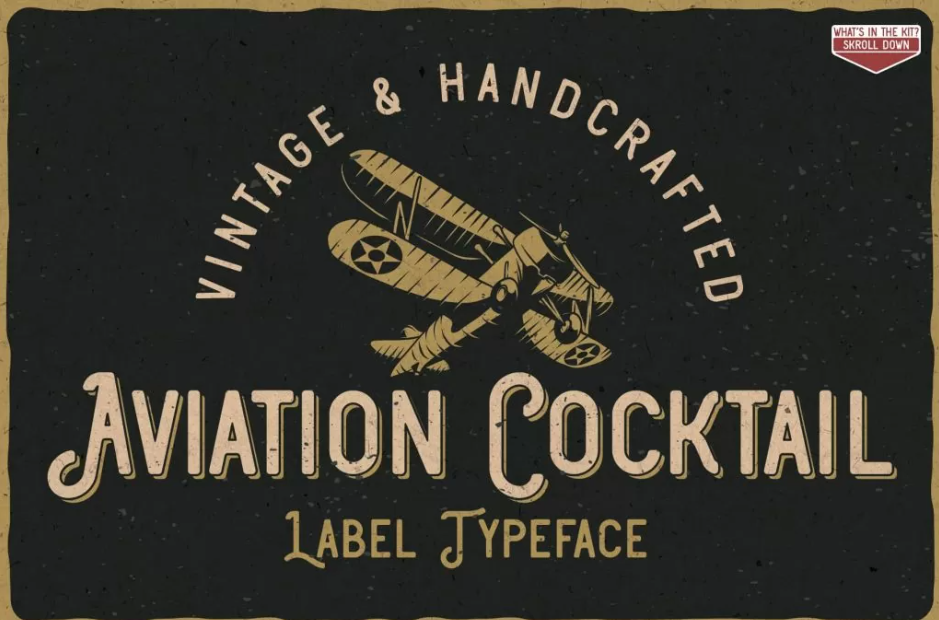
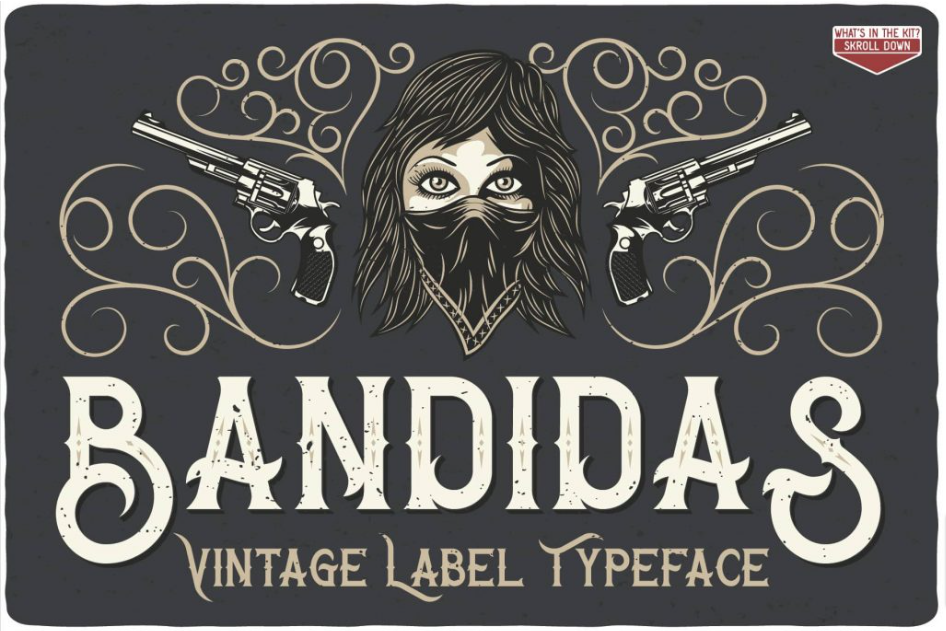
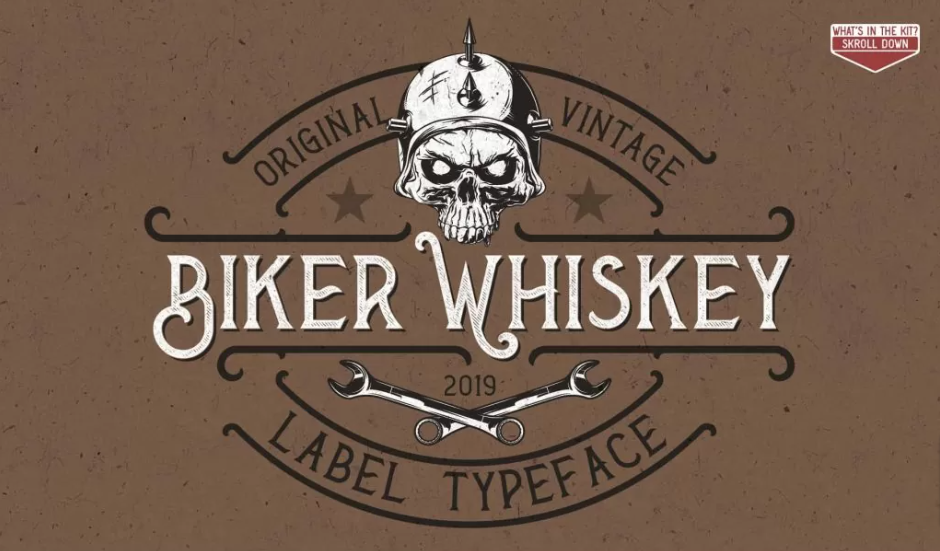
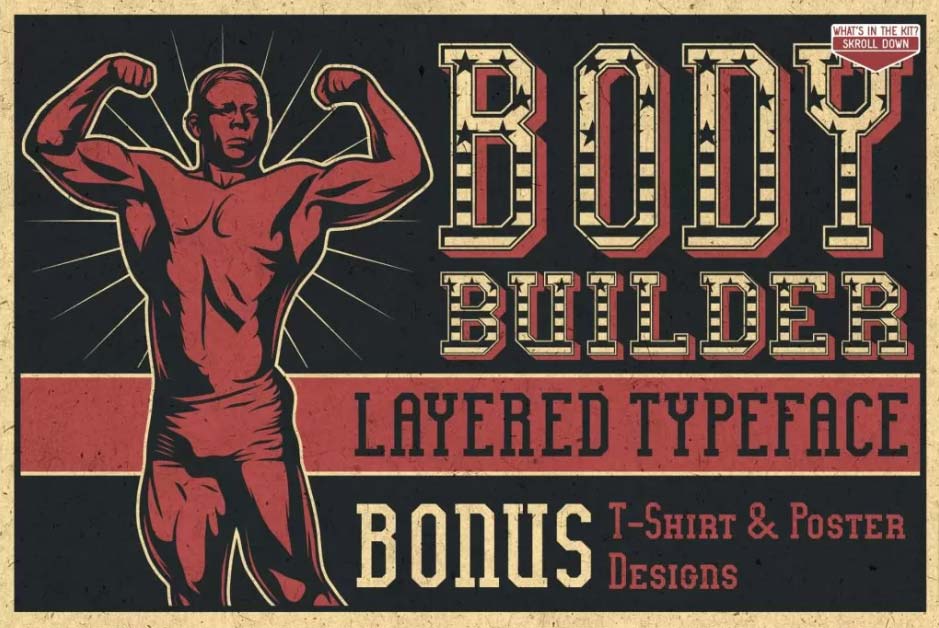
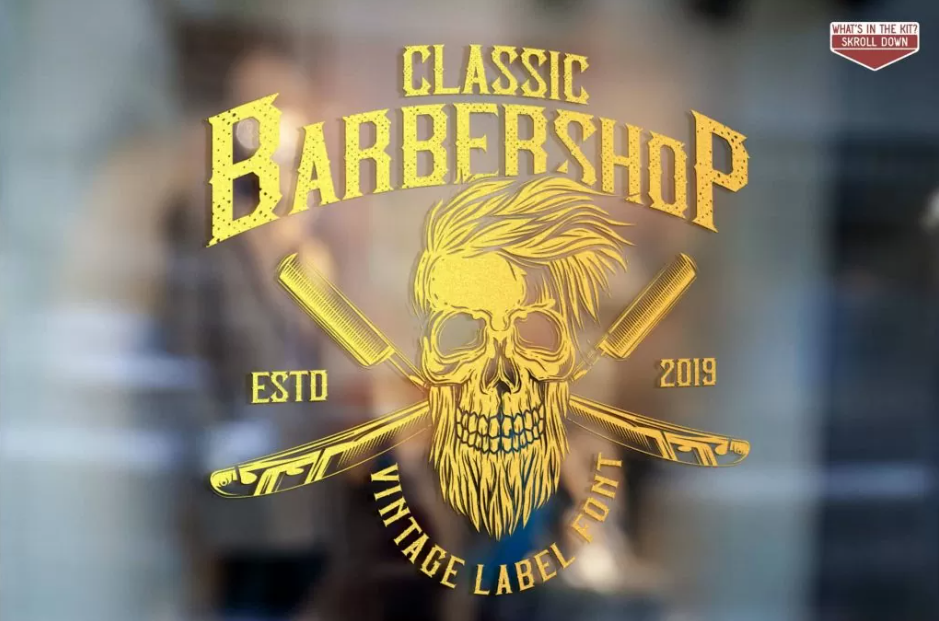
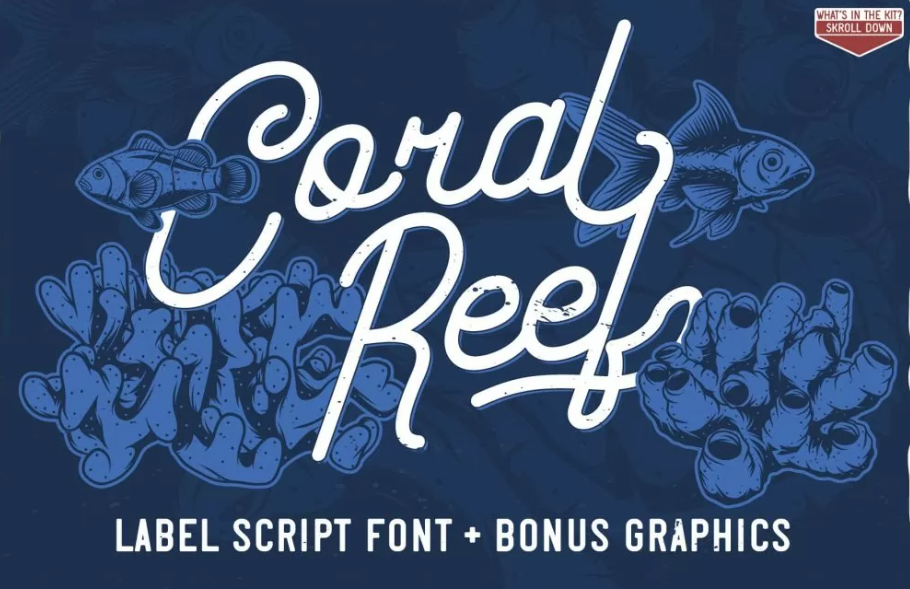
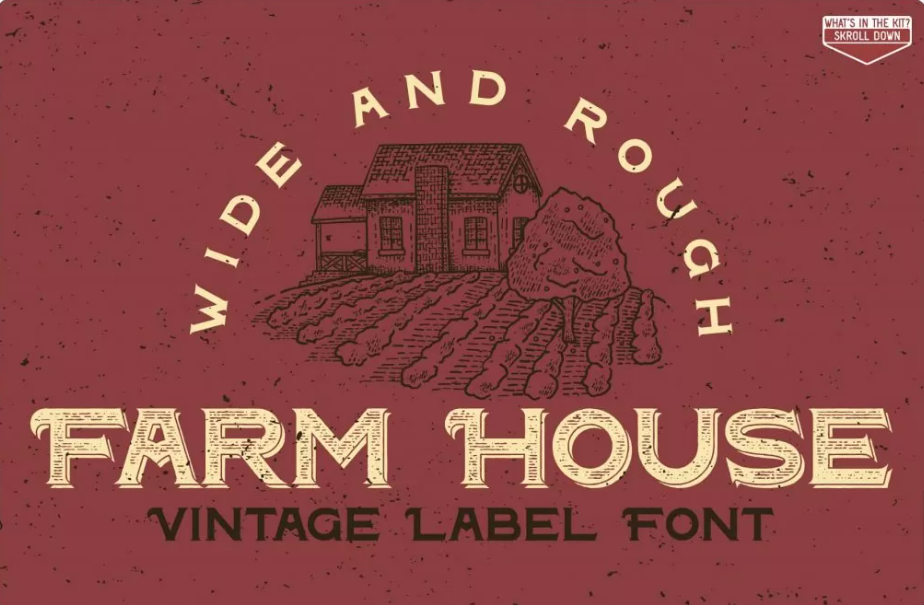
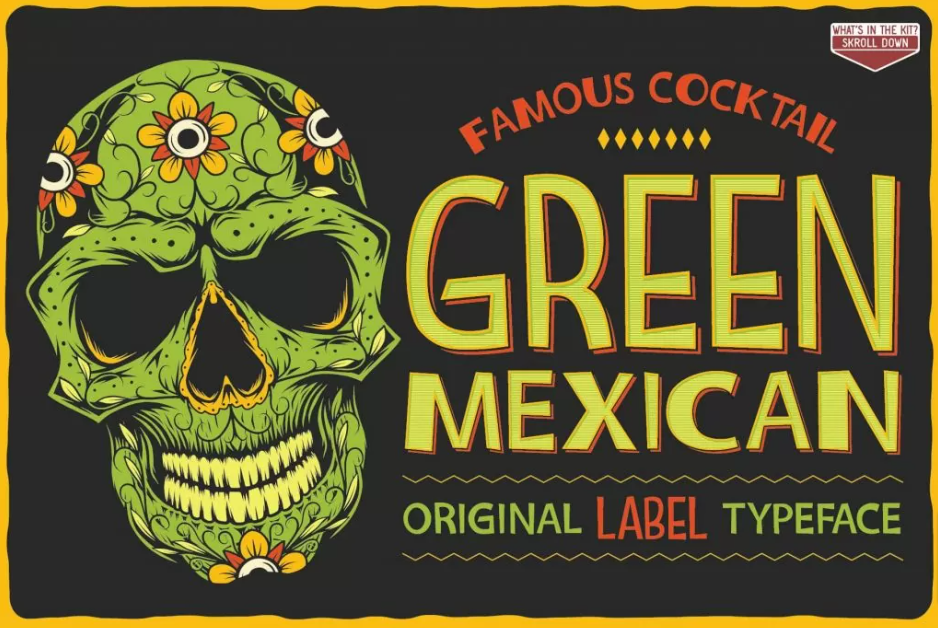
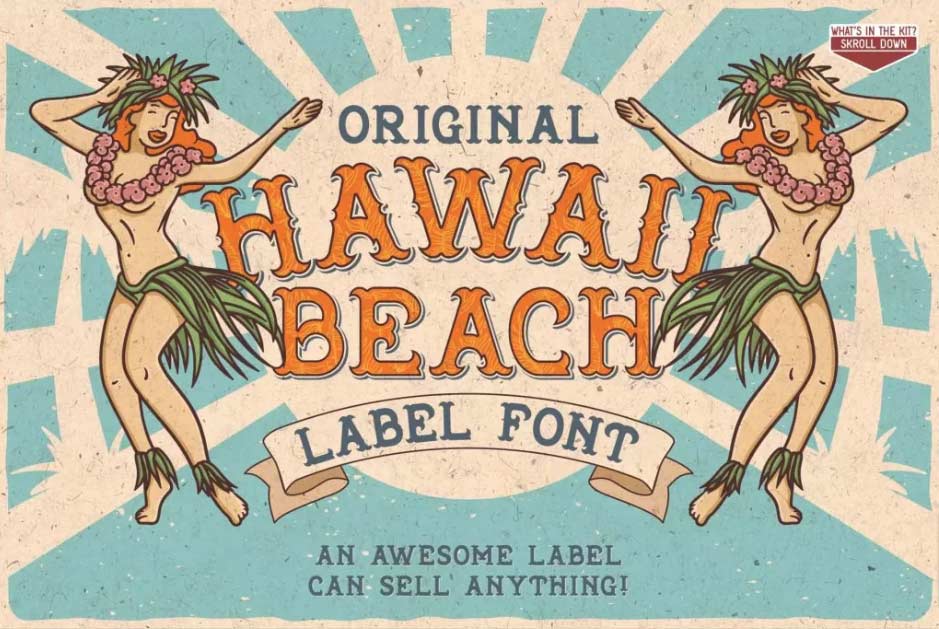
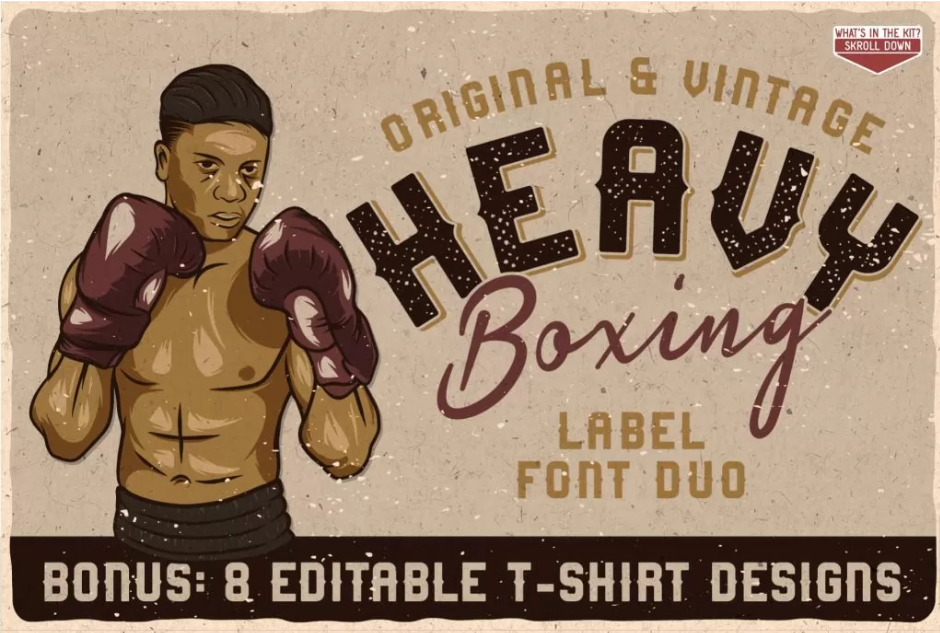
- Pirate Bay Font
How Can You Use These Vintage Fonts
Implementing a vintage aesthetic in your designs can be effortless if done right.
Adding a vintage vibe to your designs can make them creative, nostalgic and awaken certain memories!
To use vintage fonts effectively, firstly select a font that suits your style. You can then easily just pair it with modern fonts for readability.
Some of the factors to keep in mind are:
- Considering the context: Make sure the way you use the font is best suited to your project. You wouldn’t want your elegant aesthetic to clash with a fun and colorful artwork.
- Maintain legibility: The way you use vintage fonts should be legible in order for your audience to be able to read your content. This will also ensure that your message is clear and will be well perceived.
- Add complementary colors and textures: If you are trying to achieve an authentic vintage look, infuse complementary colors and textures. Using bold and bright colors, might result in confusing and chaotic artwork.
- Keep a balanced and cohesive design: In order to create captivating and stunning designs, maintaining a balanced and cohesive design is essential.
With careful consideration of these factors you can easily create enchanting and alluring designs.
Conclusion
Using the right font is a great way to tell remarkable stories and having the right tool by your side is key.